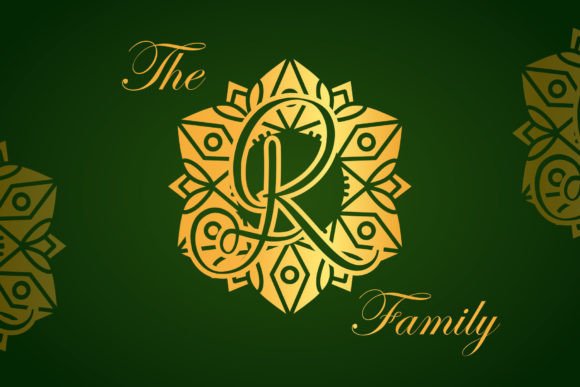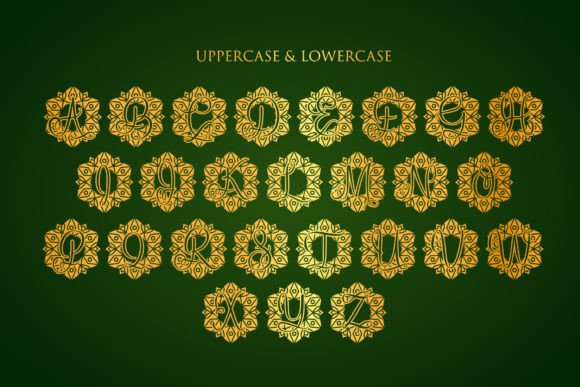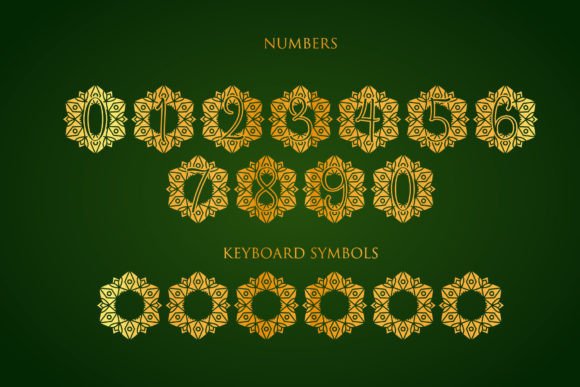
Introducing Floral Mandala Monogram Font: Elevate Your Creations with Elegance
Are you a designer, crafter, or DIY enthusiast looking for a unique and stylish font to elevate your creations? Look no further than the Floral Mandala Monogram Font. Inspired by the intricate beauty of mandala art, this decorative font is sure to add a touch of elegance to any project.
What is Floral Mandala Monogram Font?
Floral Mandala Monogram Font is a carefully crafted decorative font that combines the classic look of monograms with the intricate details of mandala art. The result is a stylish and unique font that is perfect for a variety of creative projects, from wedding invitations and stationery to logos and branding materials.
Key Features of Floral Mandala Monogram Font
- Unique and Exclusive Design: Each letter in the Floral Mandala Monogram Font is intricately designed with floral patterns and mandala-inspired details, making it a one-of-a-kind addition to your font collection.
- Highly Versatile: This font can be used for a wide range of projects, including wedding invitations, party decorations, logos, branding materials, and more.
- Elegant and Classy Look: The Floral Mandala Monogram Font has a sophisticated and elegant look that is sure to elevate any creation.
How to Use Floral Mandala Monogram Font
- Wedding Invitations: Use the Floral Mandala Monogram Font to create stunning wedding invitations that set the tone for a beautiful and elegant wedding.
- Stationery: Add a touch of elegance to your stationery with the Floral Mandala Monogram Font. Perfect for personal letters, thank-you cards, and more.
- Logos and Branding: Use the Floral Mandala Monogram Font to create a unique and memorable logo for your business or brand.
- Party Decorations: Create beautiful party decorations, such as banners, garlands, and more, using the Floral Mandala Monogram Font.
Benefits of Using Floral Mandala Monogram Font
There are many benefits to using the Floral Mandala Monogram Font in your creative projects. Here are a few:
- Adds Elegance and Sophistication: The Floral Mandala Monogram Font adds a touch of elegance and sophistication to any project.
- Unique and Eye-Catching: This font is sure to grab attention and make your project stand out.
- Versatile: The Floral Mandala Monogram Font can be used for a wide range of projects, making it a great addition to your font collection.
In conclusion, the Floral Mandala Monogram Font is a stylish and unique decorative font that is perfect for designers, crafters, and DIY enthusiasts looking to add a touch of elegance to their creations. With its classy look and highly versatile design, this font is sure to elevate any project. Whether you’re creating wedding invitations, stationery, logos, or party decorations, the Floral Mandala Monogram Font is a great choice.